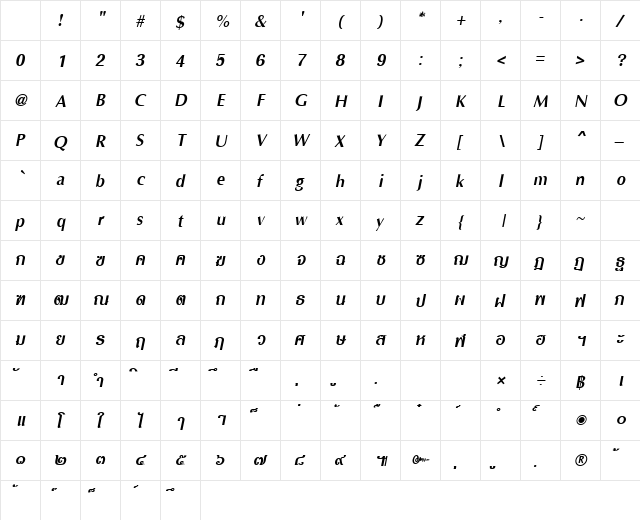
PSL-Asadong is a composed and adaptable typeface that performs quietly and consistently across a wide range of design contexts. The slanted form adds forward momentum and visual energy. Its bold stroke weight gives it real presence on the page.